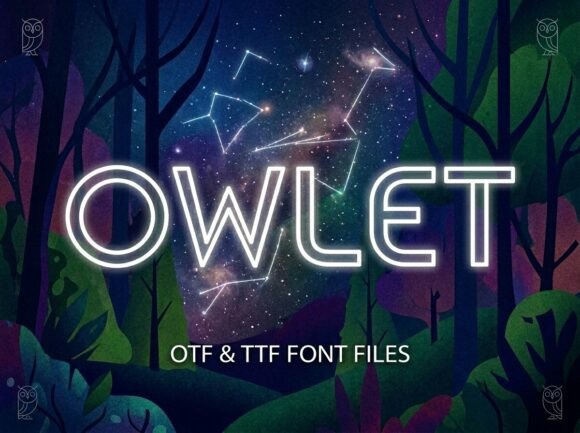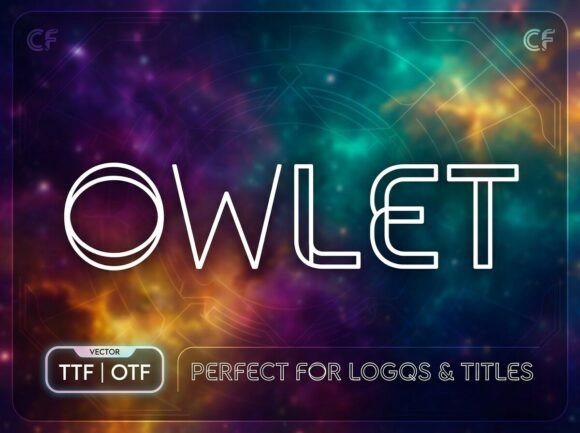
Introduction to Owlet Font
Have you ever been working on a creative project and suddenly, you need that one special element to make it truly pop? The perfect font can be the difference between a good design and a great one. That’s where the Owlet Font comes in – a stunning decorative display font designed to be the center of attention.
As a designer, you’re constantly on the lookout for high-quality design resources to elevate your work. The Owlet Font is a valuable addition to your design arsenal, offering a strong visual personality that’s perfect for bold headlines, artistic logos, and creative packaging. With its unique artistic elements and professional finish, this font is sure to make your designs stand out. Whether you’re working on a project that requires a free download or a transparent background, the Owlet Font is a versatile and reliable choice.
Key Features of Owlet Font
- Designed to be highly versatile, suitable for a wide range of creative applications, from logos to typography.
- Size: The font family includes multiple weights and styles, ranging from light to bold, to cater to diverse design needs.
- Unique characteristics: The Owlet Font’s distinctive style and modern aesthetic make it an excellent choice for designers seeking a fresh and creative look.
Honest Review: Owlet Font
I recently had the chance to experiment with the Owlet Font, and I must say it’s a great addition to any design resource library. With its free download, it’s an excellent starting point for creative projects.
- ✨ High-quality font with a unique aesthetic that adds a touch of elegance to any design.
- ✨ Transparent background, making it easy to combine with other design elements.
- ✨ Great for headings and titles, the Owlet Font adds a level of sophistication.
- ⚠️ Limited character set, which may be a concern for longer texts.
- ⚠️ Not ideal for body text, as it may be difficult to read in smaller font sizes.
Overall, I’m impressed with the Owlet Font’s design and versatility. While it may not be suitable for every project, it’s definitely worth considering for creative endeavors where a high-quality, unique font is needed.
Owlet Font
Design Resource for Creative Projects
Getting the Most Out of Owlet Font
For the best results, use Owlet Font on a transparent background to create a clean and modern look. You can also experiment with different font sizes and styles to add visual interest to your designs.
The Owlet Font is a versatile design resource that can be used in a variety of creative projects, including logos, graphics, and typography-based designs. It’s also a great choice for designers who want a high-quality font with a transparent background.